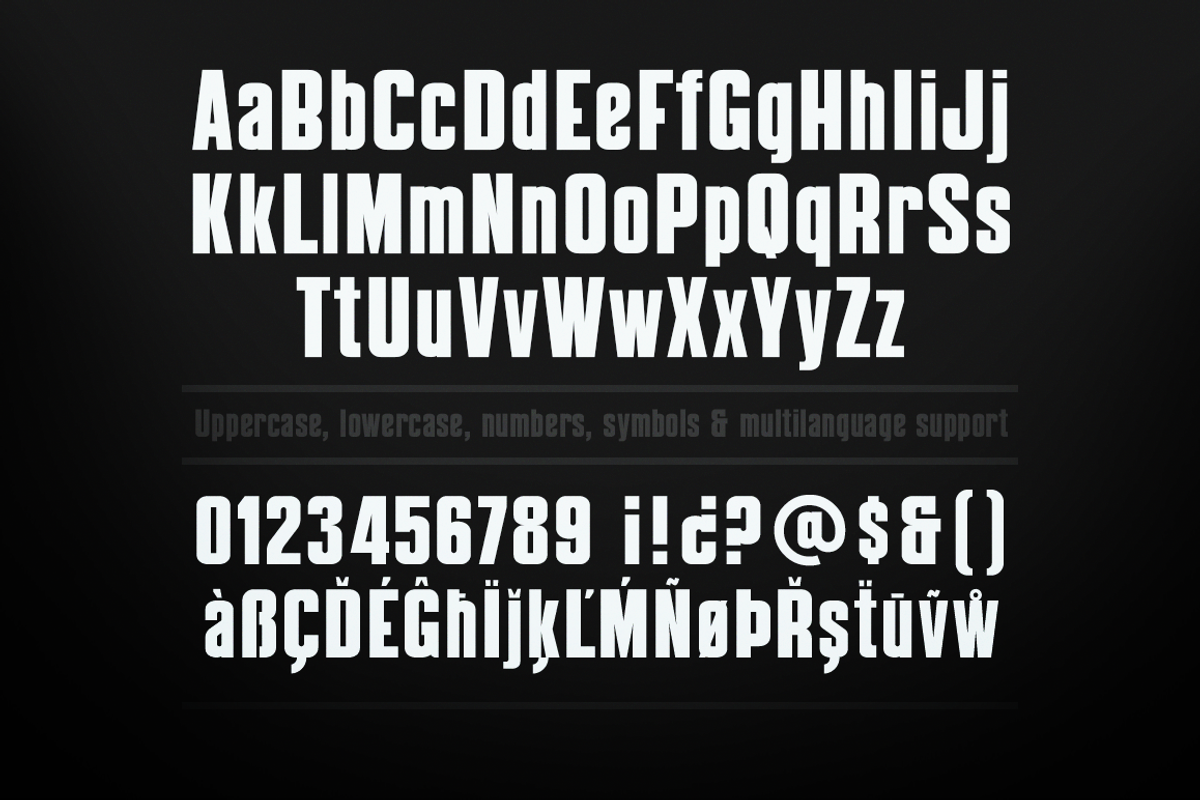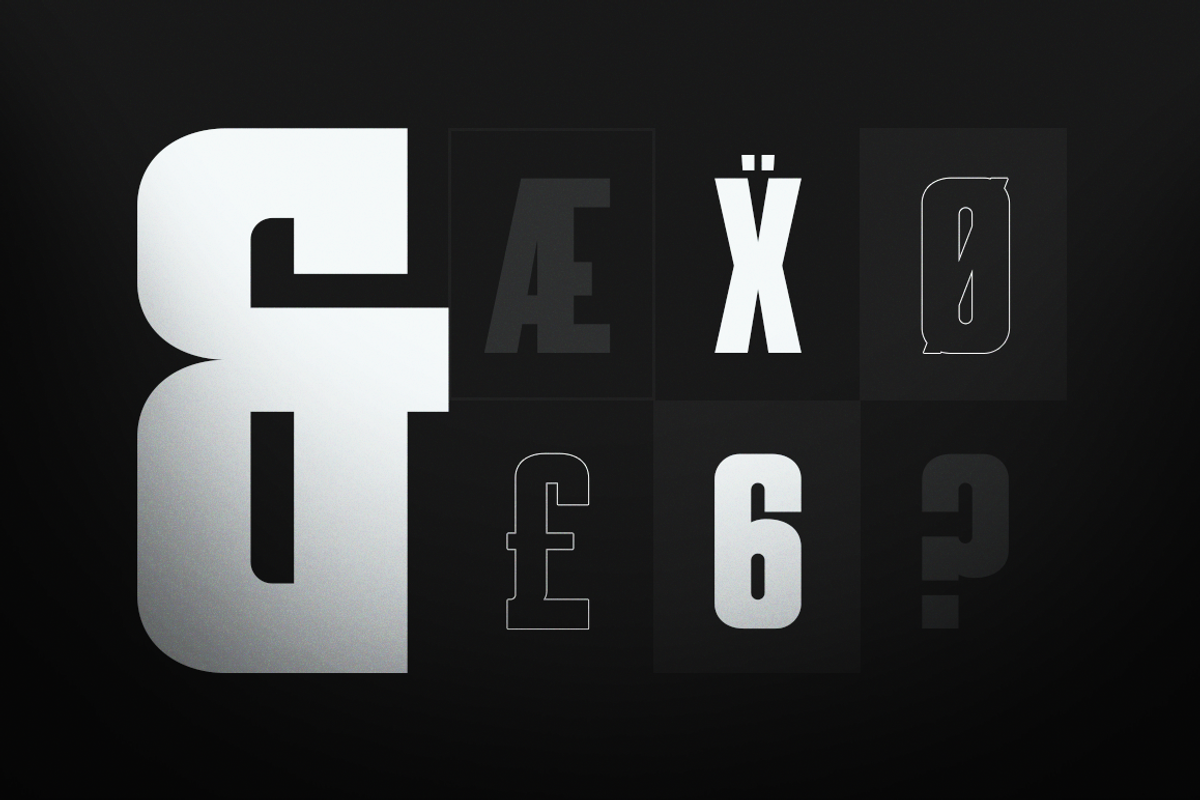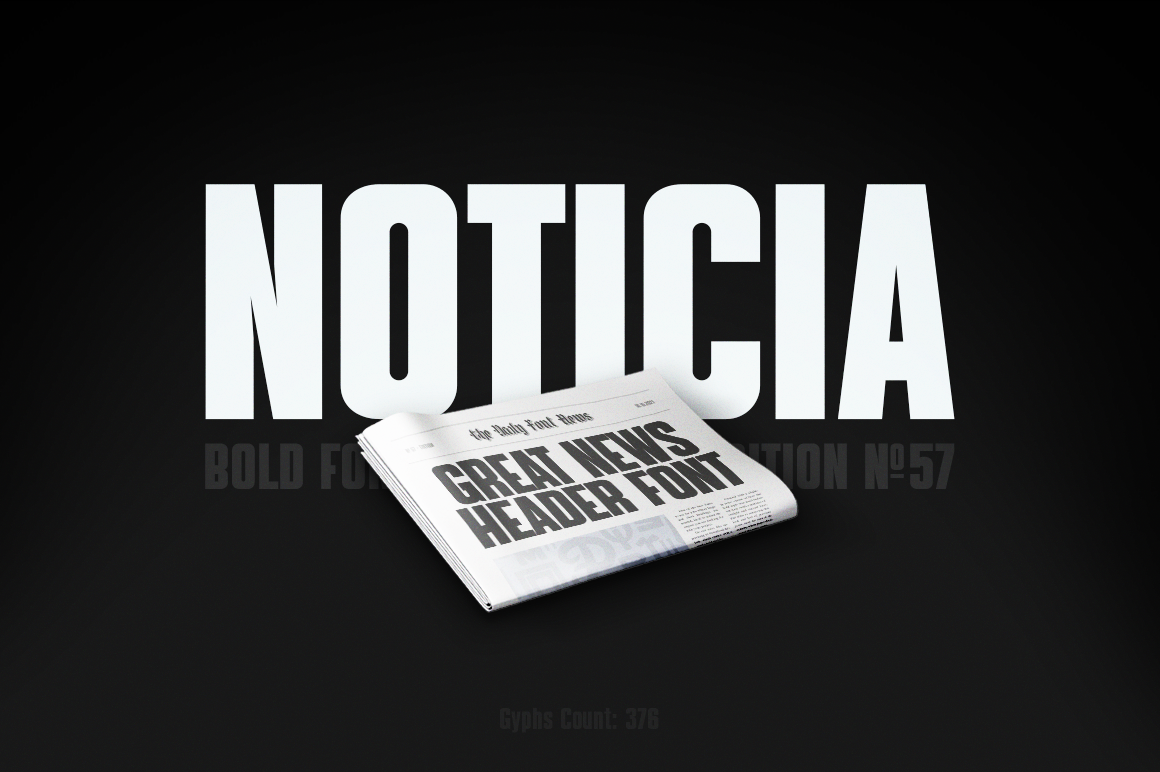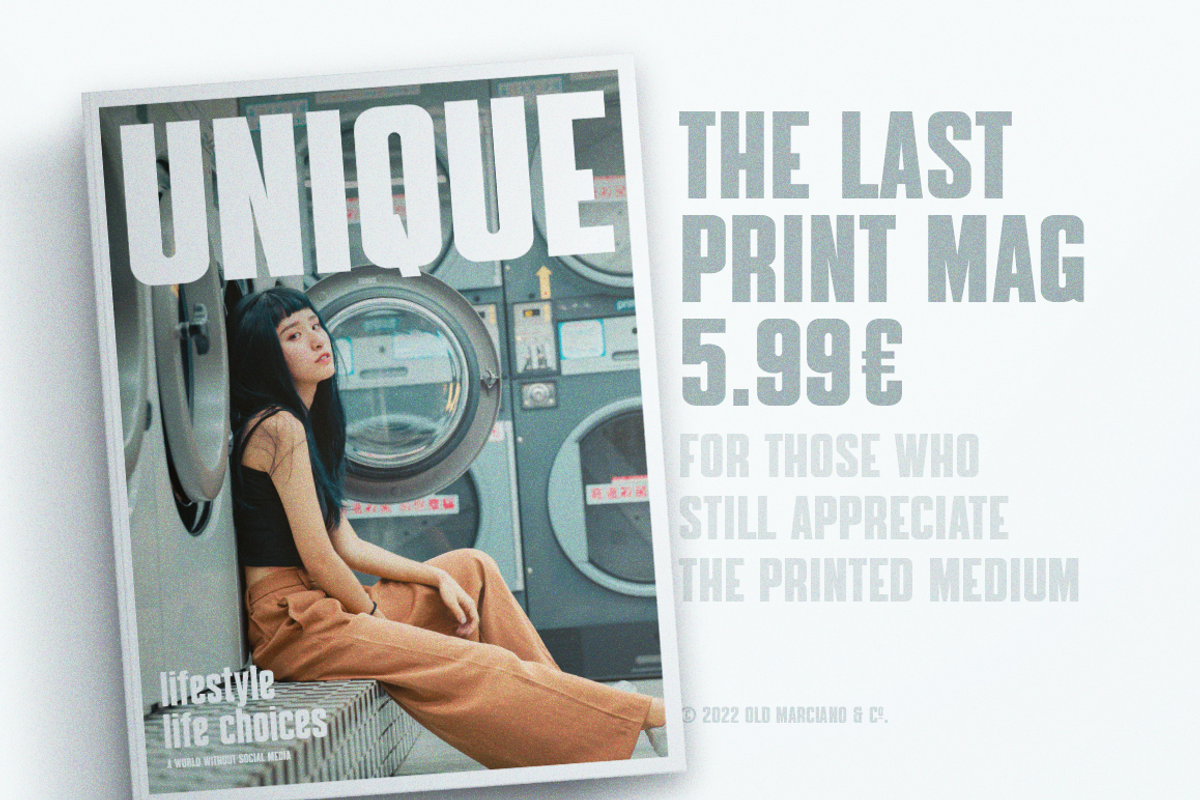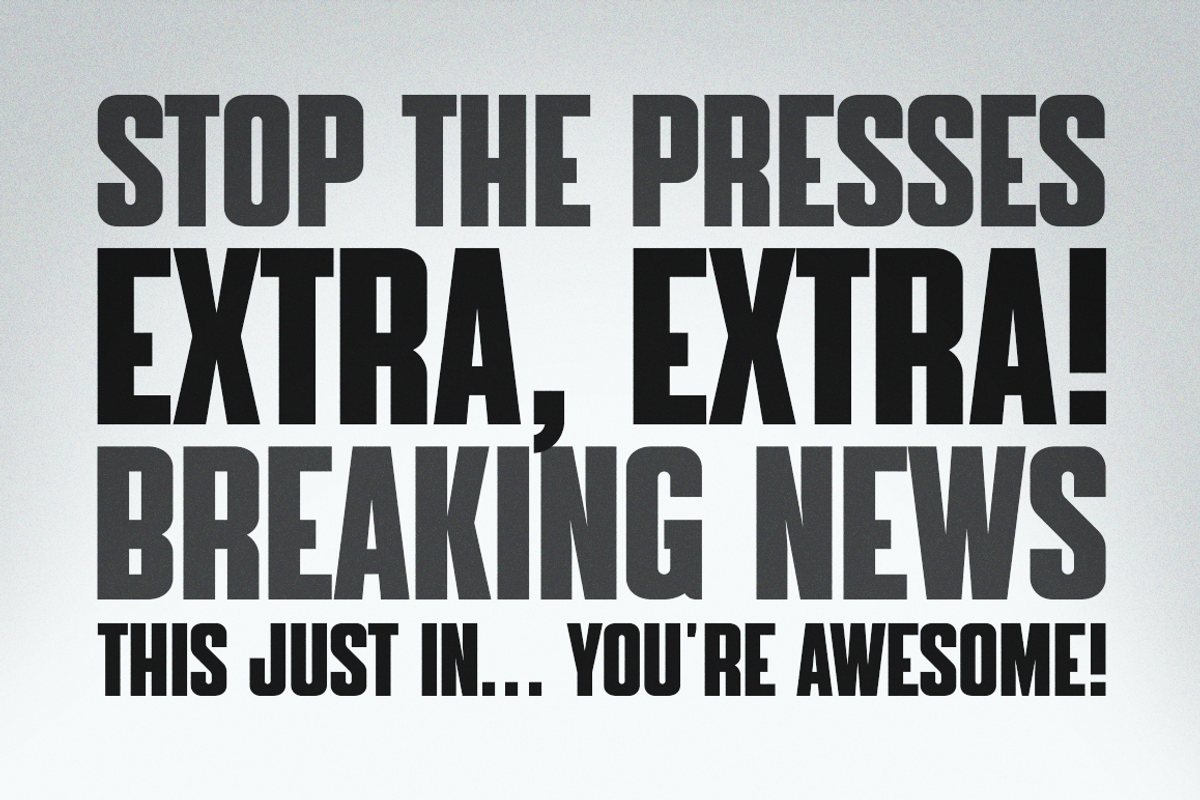
Noticia News Font
Noticia is a strong and bold classic style font that is ideal for use with headlines or short headers in the style of the traditional printed newspapers. The font is clean and its simple curve and straight lines appearance help recreate that turn of the century news look and feel. The file includes uppercase and lowercase characters, standard punctuation, and international characters for multi-language support features to help you create amazing design results.